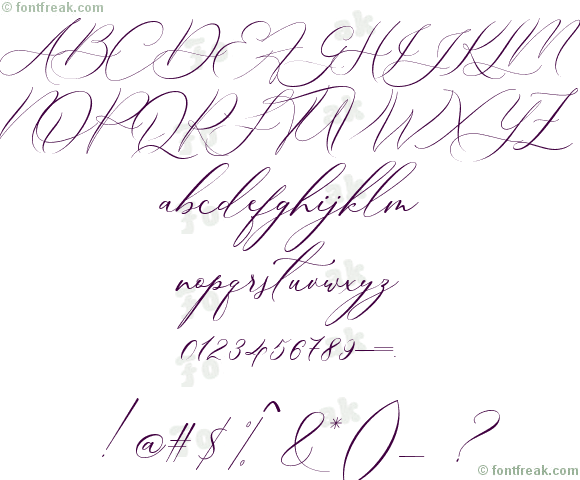
BohemeFloral
About BohemeFloral
BohemeFloral, created by 50Fox Studio, is a stunning display script font that exudes elegance and artistic flair. This font, characterized by its flowing strokes and whimsical curves, brings a sense of romance and sophistication to any design project. The contrast in stroke weight adds depth and visual interest, while the generous spacing between letters ensures clarity and readability. The decorative elements, reminiscent of natural forms, introduce a touch of organic beauty, making it a perfect choice for various creative applications.
Ideal for wedding invitations, BohemeFloral lends a personal and heartfelt touch to formal announcements. Its graceful design also makes it well-suited for artistic branding, such as logos for boutique shops or handmade goods. Graphic designers can utilize this font for crafting eye-catching movie posters that demand attention, while small business owners might find it perfect for restaurant menus that aim to create an inviting atmosphere. Furthermore, content creators can enhance their social media graphics and promotional materials with this font, ensuring their messaging stands out in a crowded digital landscape.
The target audience for BohemeFloral includes graphic designers, small business owners, and content creators looking to infuse a unique charm into their work. This font resonates particularly well with those who appreciate the blend of modern aesthetics and classic design elements.
What sets BohemeFloral apart is its ability to convey emotion through typography. Its artistic flair and versatility make it not just a font, but a powerful tool for storytelling in visual formats. For those looking to elevate their designs with a touch of elegance, the BohemeFloral font free download provides an excellent opportunity to incorporate this captivating typeface into their projects.